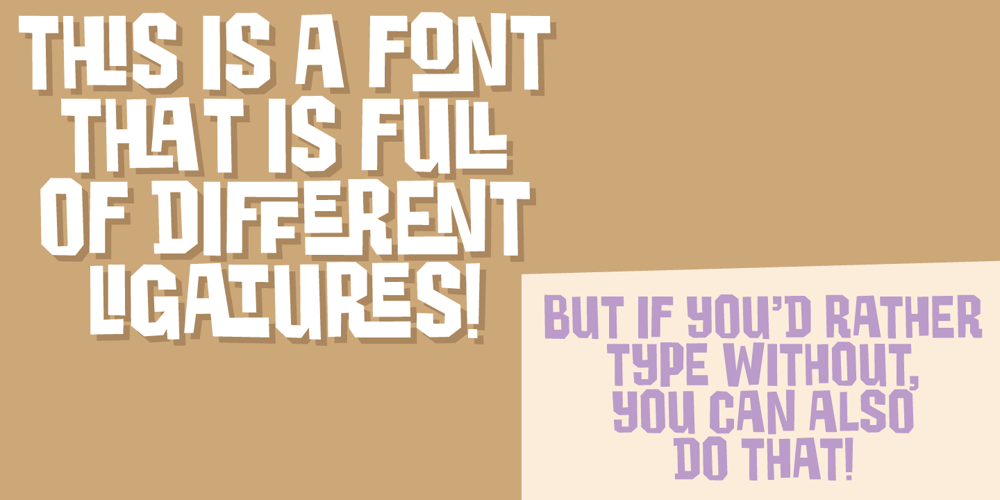
Foulmouth Font Family was designed by published by PizzaDude.dk. Foulmouth contains 2 styles and family package options. Foulmouth comes directly from the future – lucky for us, it comes in peace! The straight lines gives the font a futuristic and stylistic look. Perfect for science fiction posters, techno flyers or something to do with anything mechanic. Also, the font is LOADED with ligatures – almost 200 for you to play around with!